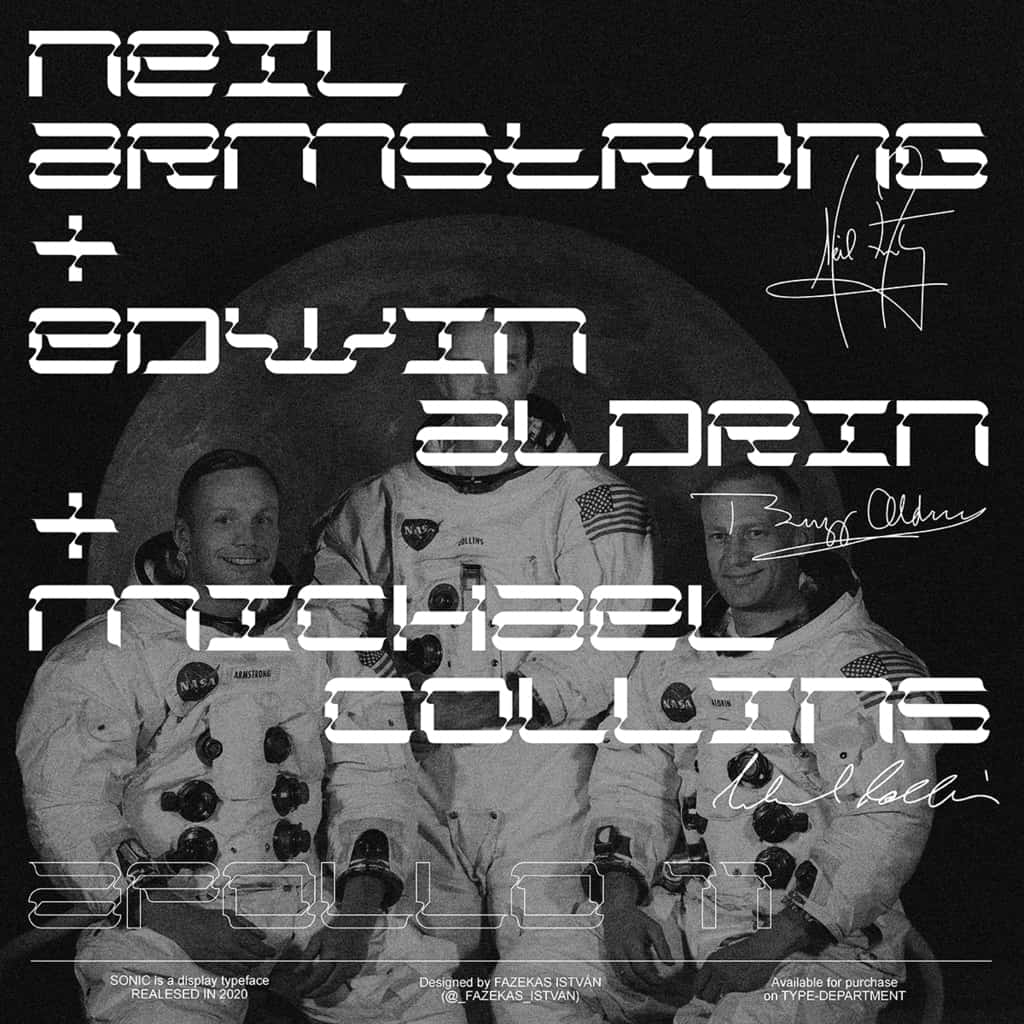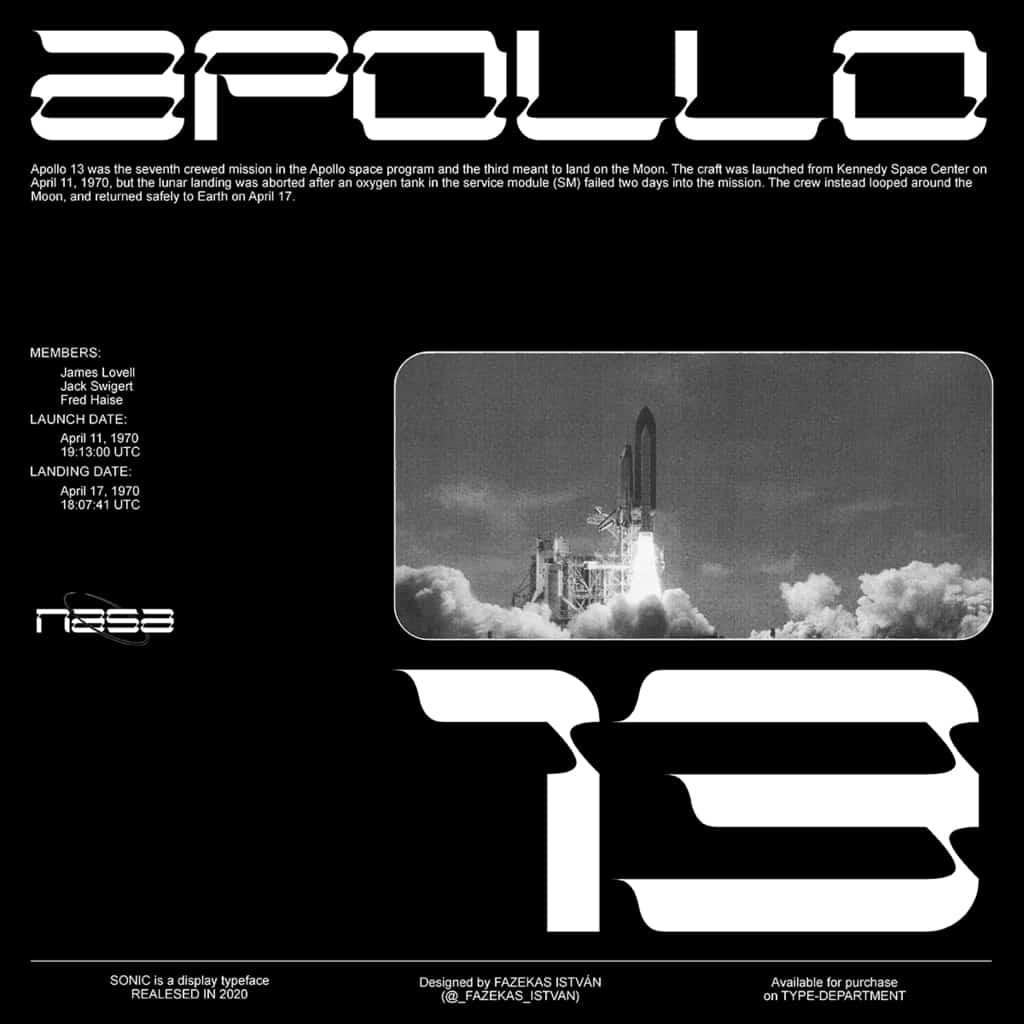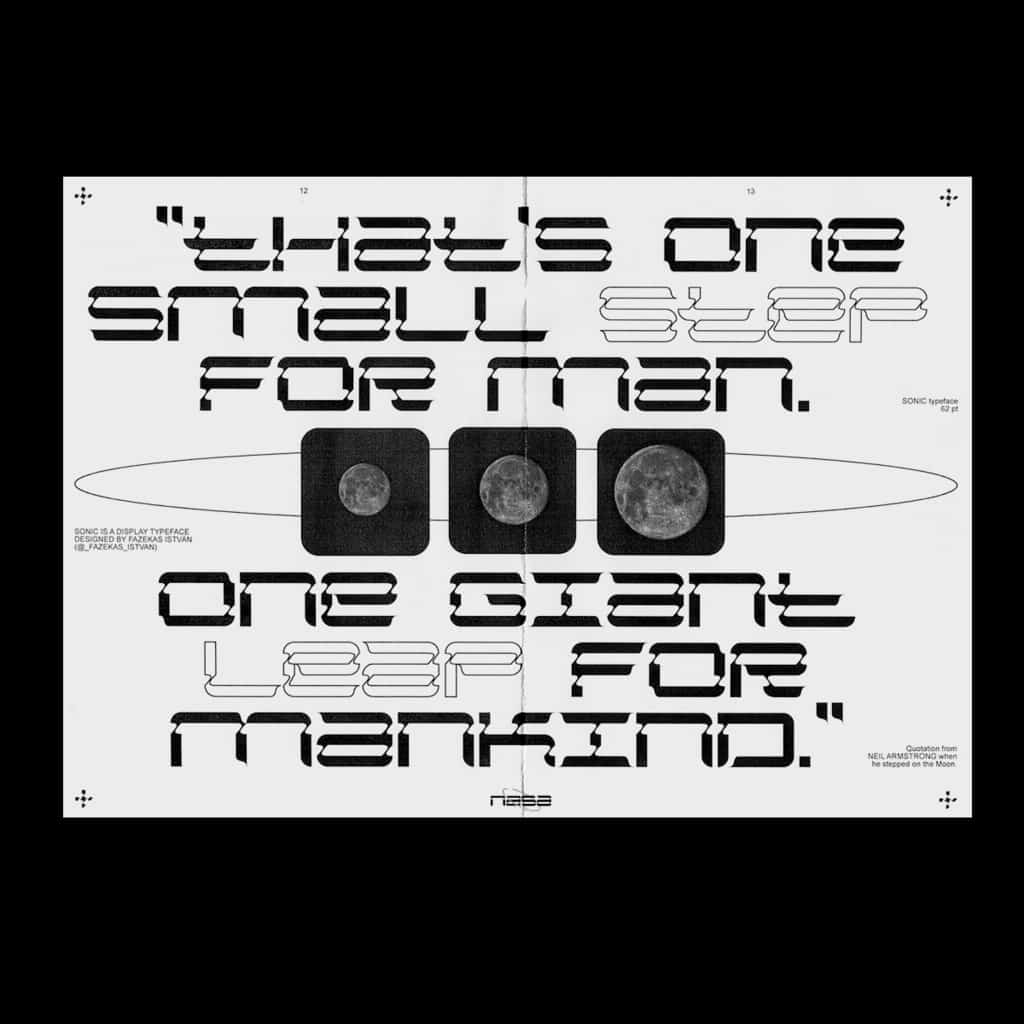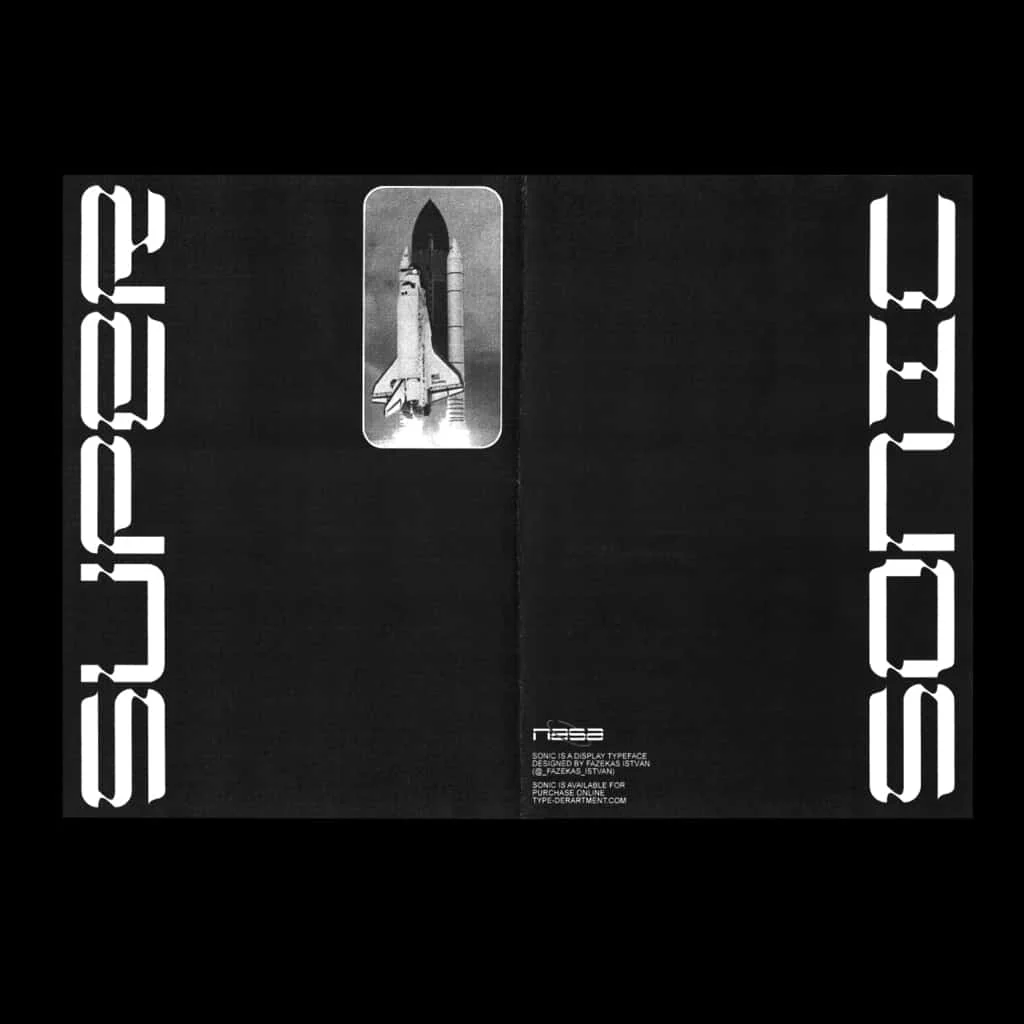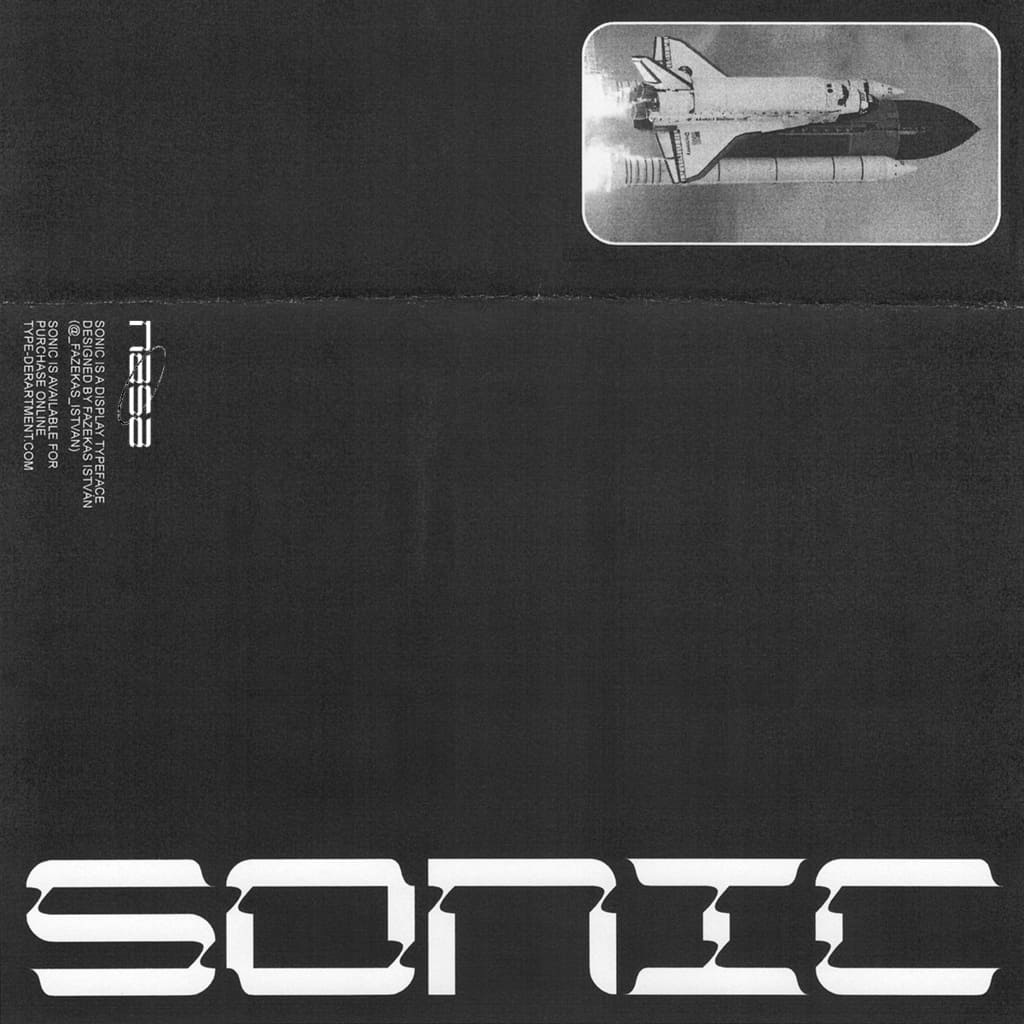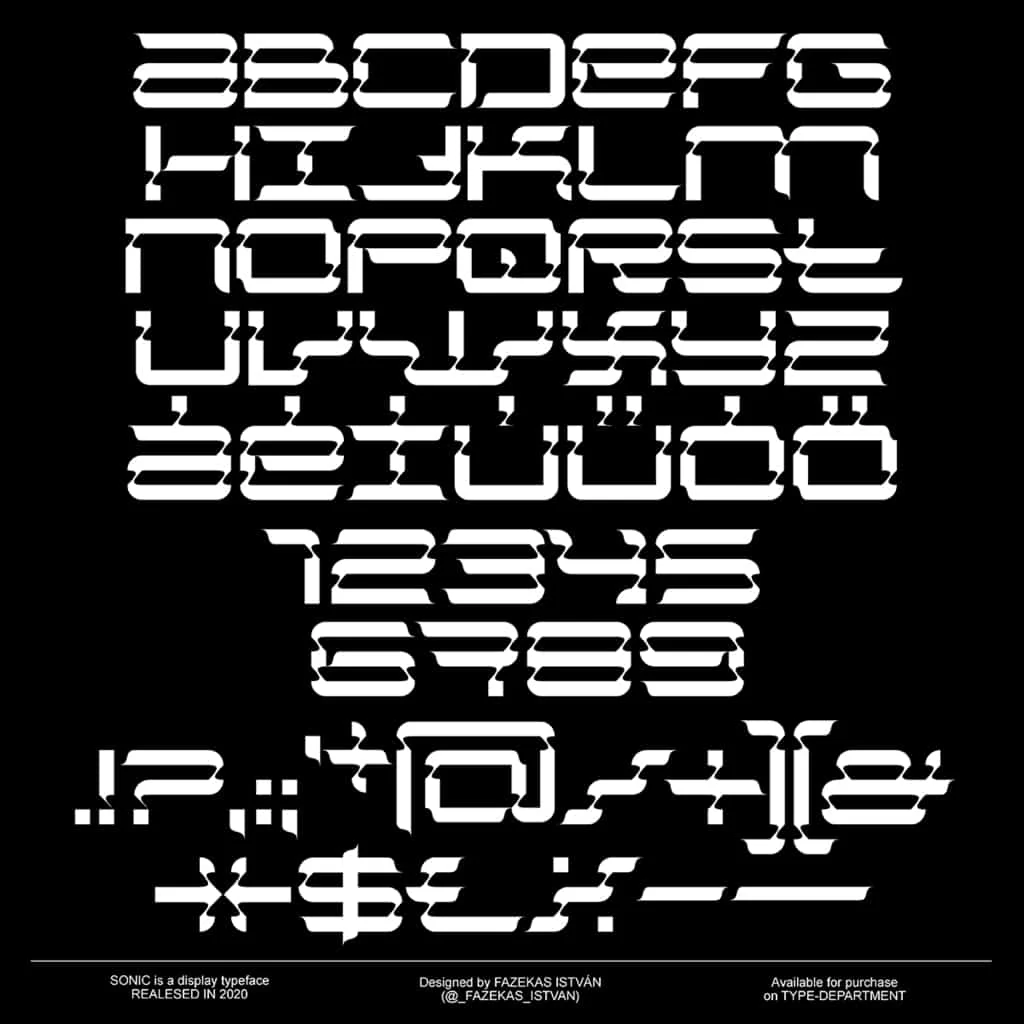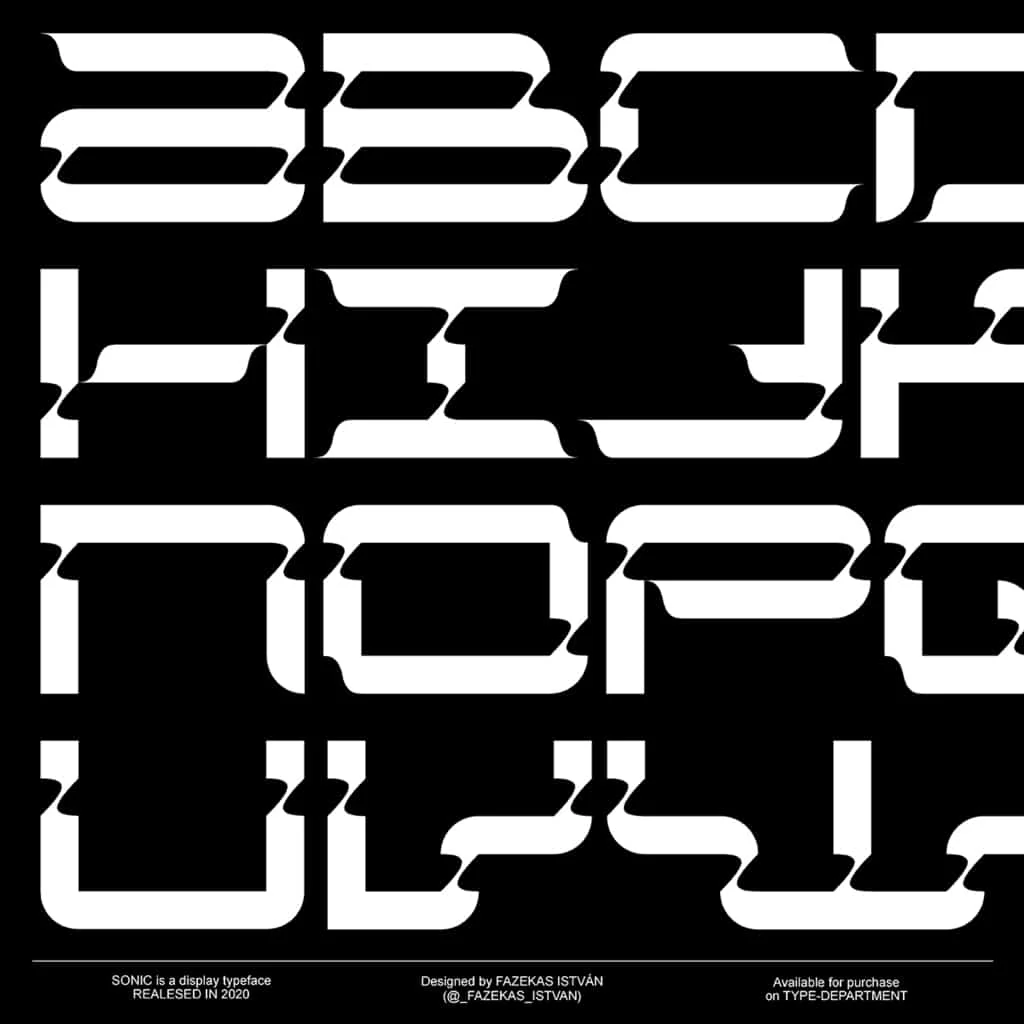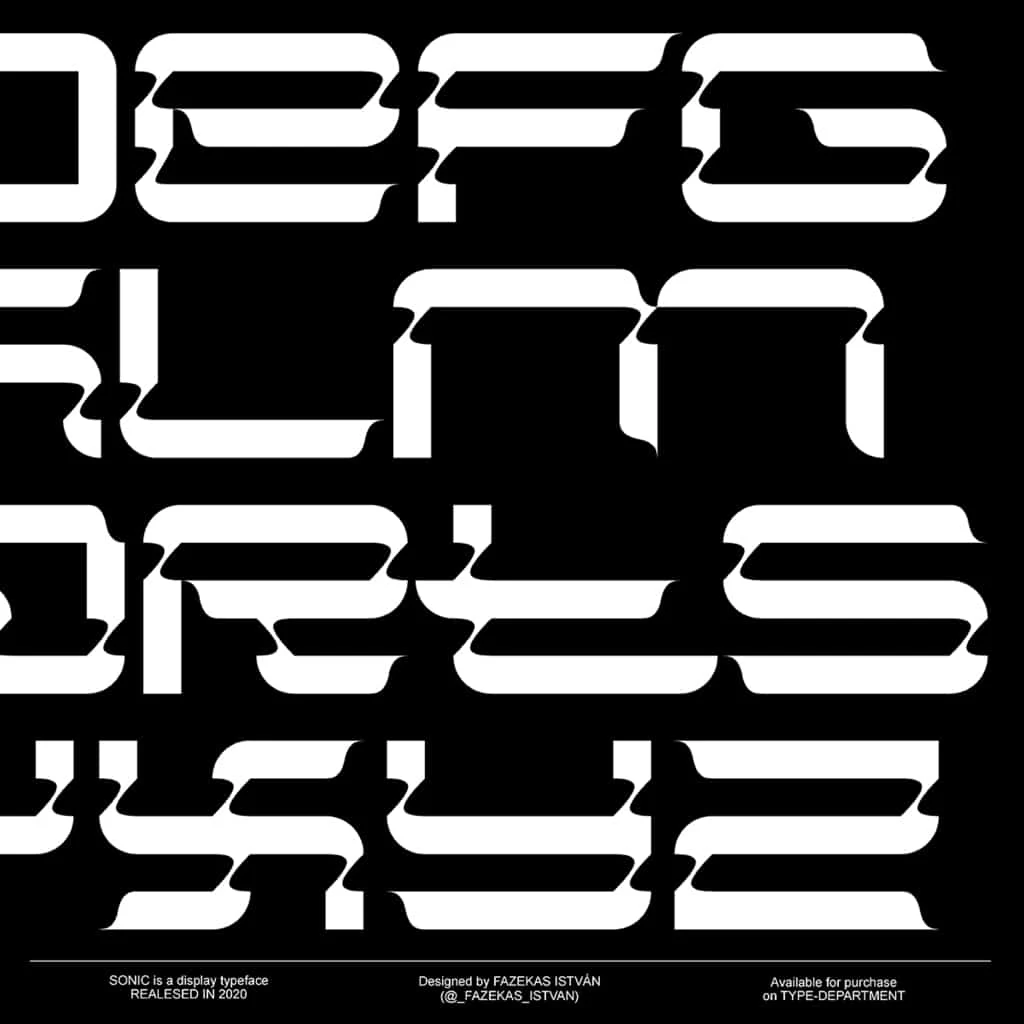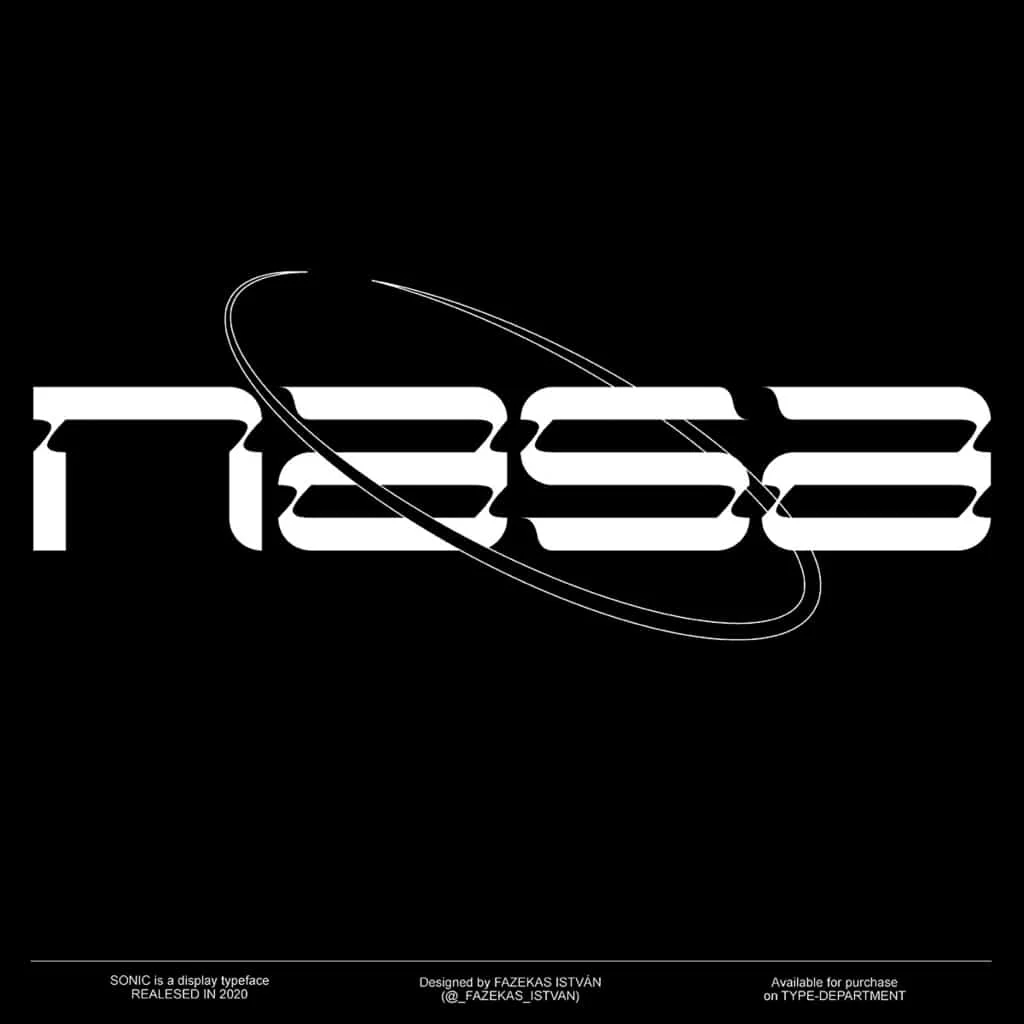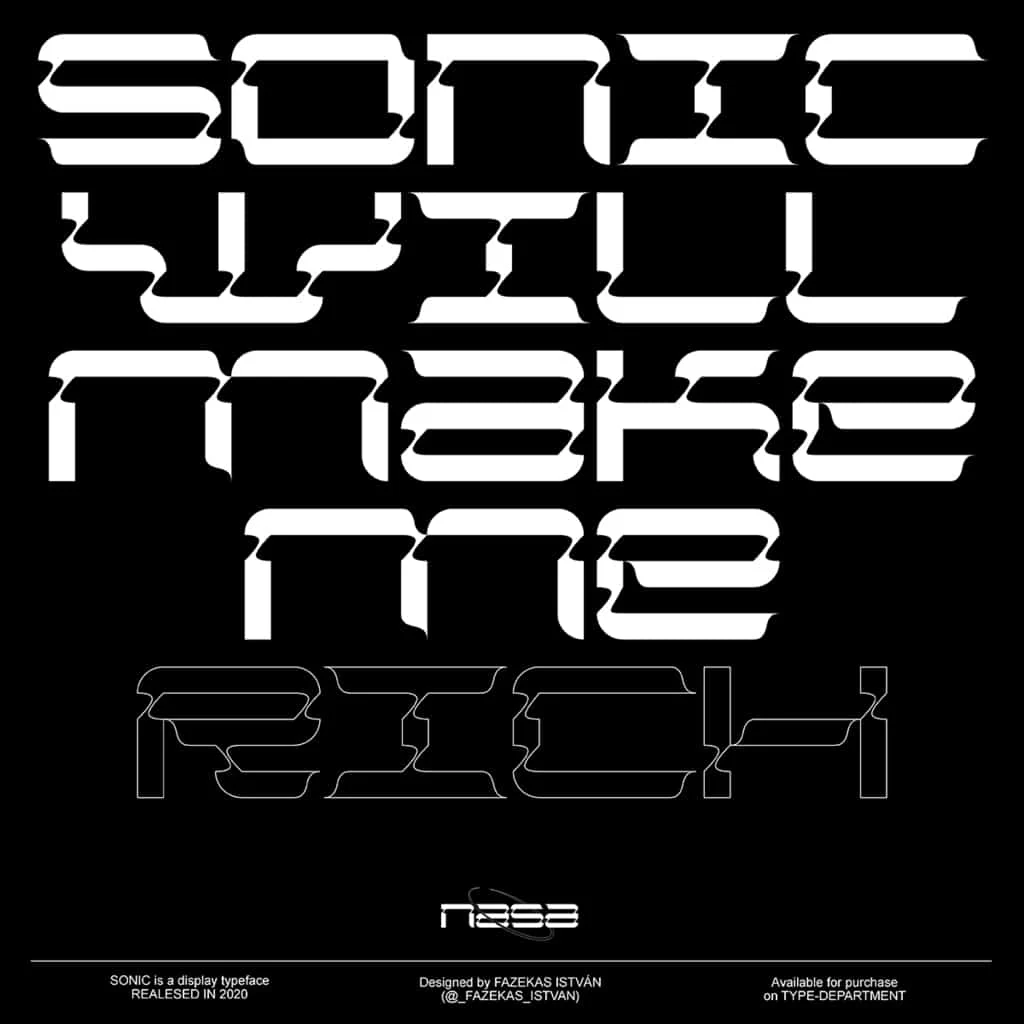
Sonic
Sonic is an expressive display typeface that harmonises aesthetics from early sci-fi films with modern typographic trends. Its extended, ergonomic shapes evoke a sense of dynamic motion, while its intricate, pattern-like structure captivates the eye. Crafted with tight spacing and carefully sculpted curves, Sonic ensures exceptional legibility and versatility across various design applications.